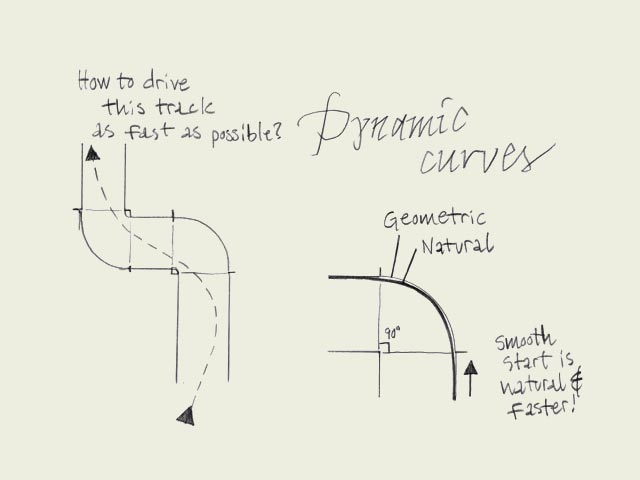
| Fluent shapes. Designing type is like driving a car. If you drive a car, you always take the curve in a natural way. If you draw a curve (of a character) on paper, this is exactly the same. The curve starts smoothly, never out of a sudden. While driving a car, you don't start turning the wheel when you are already in the beginning of the curve. A while before you arrive in the curve you anticipate by leading your car gently in the right direction. Think about driving a car when you are sketching type on a paper. |